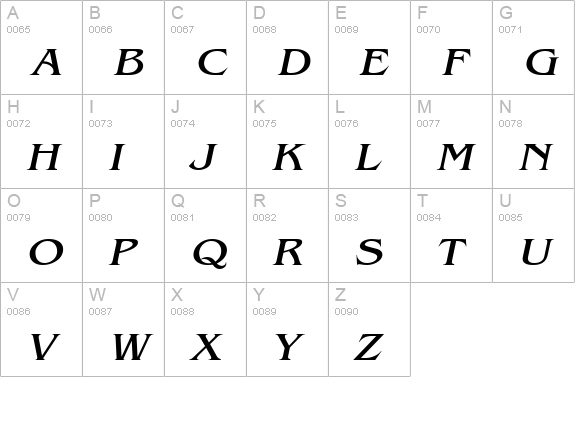
Bangle Wide Italic is a distinctive, extended-width, italic variant in the Bangle typeface family \xE2\x80\x94 well suited to design and typography projects.
Bangle Wide Italic is a beautifully designed font that exudes elegance and sophistication. Its sleek, modern style makes it perfect for adding a touch of class to any project. The italicized version of Bangle Wide adds a dynamic flair to your text, making it stand out in a stylish way. What's even better is that Bangle Wide Italic is available for free download at FontsMarket.com. So, you can elevate your designs without breaking the bank. Don't miss out on this opportunity to add a touch of luxury to your work with Bangle Wide Italic.